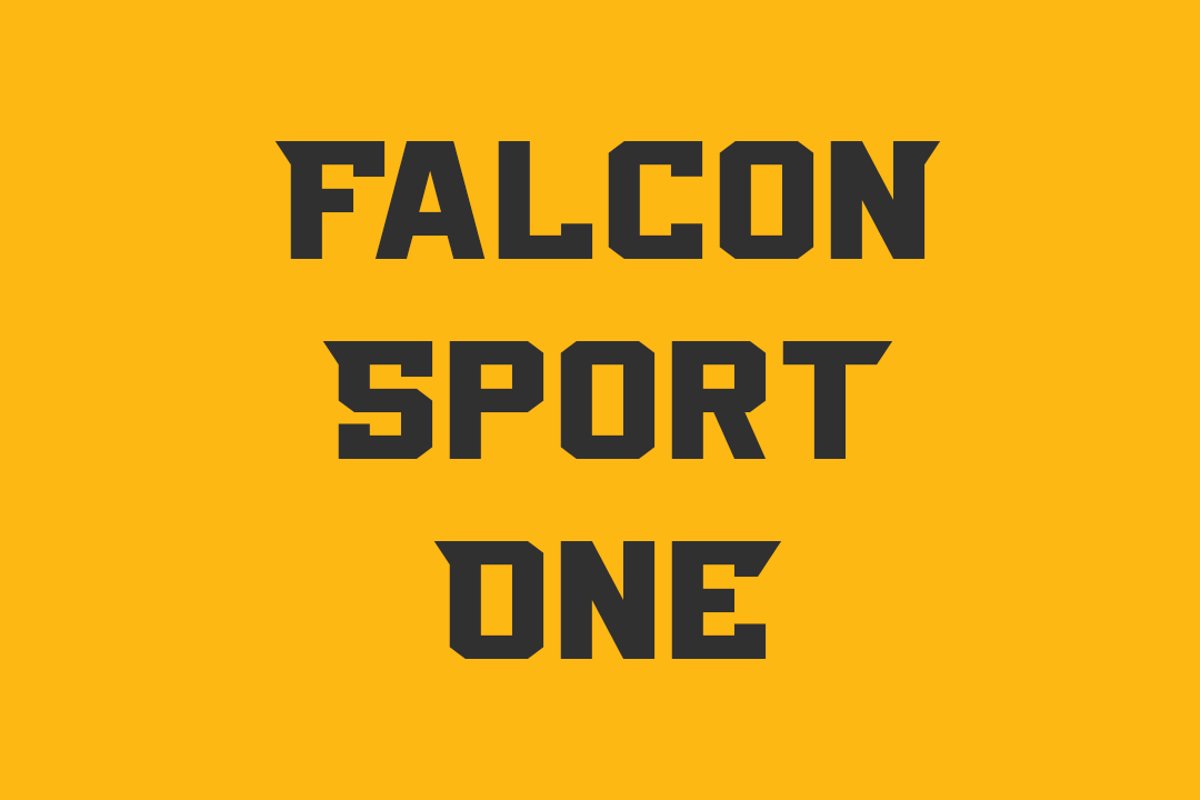
Falcon Sport One
Falcon Sport One Italic
Falcon Sport One Regular
Falcon Sport is a square typeface with a bold, easy design. The typeface
includes Latin and Cyrillic uppercase, numbers and punctuation. Falcon
Sport comes two styles and includes italics. This typeface works great
for logos (also sport logos), packaging and other display settings.